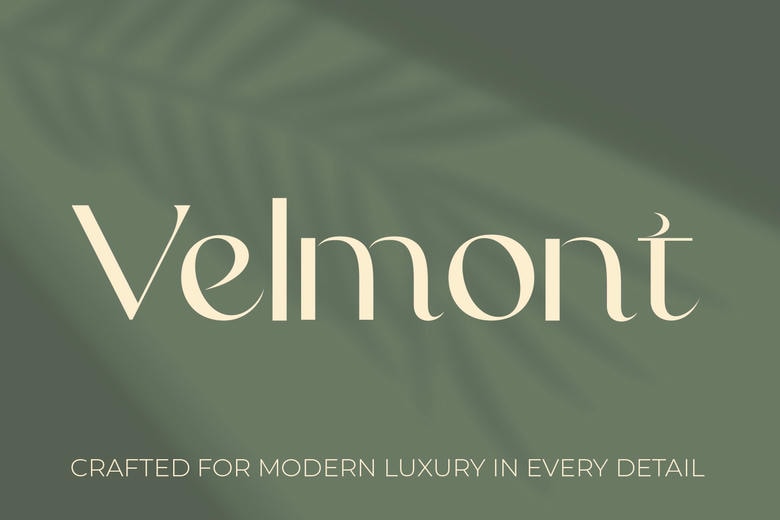
Velmont Font
Velmont is an elegant refined serif font that offers a modern sense of style and timelessness. Created in elegant lines and lines, clean lines, and proportional lines, Velmont provides an elegant aspect of voice that is ideal within high-end branding and high-end design work.
Inspired by classic editorial typography, as well as upscale print traditions, this font works perfectly for logos, fashion branding, wedding invitations, magazines, luxury packaging, cosmetics, jewelry branding, and more and works beautifully in refined advertisement layouts.
Its clean yet expressive letterforms guarantee an excellent readability without losing an impression of prestige and exclusivity.Velmont is perfect for designers who are looking for a font that speaks softly but confidently and helps to create an atmosphere of modern luxury, refinement, and lasting style to any visual identity.
Velmont Serif Font